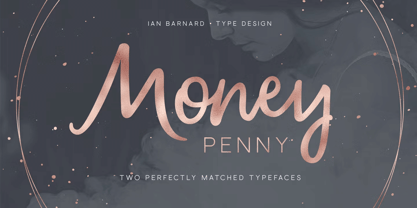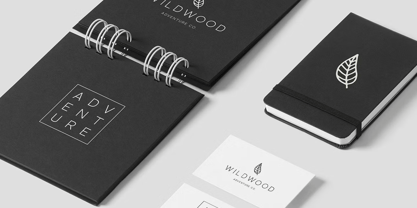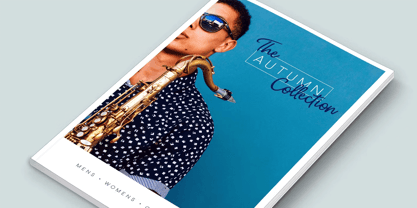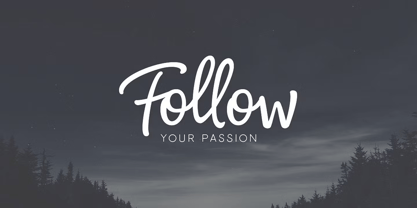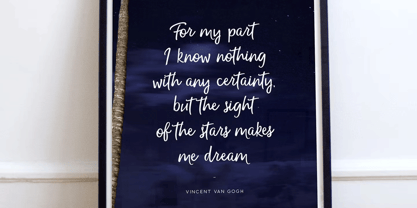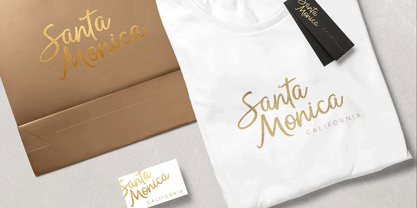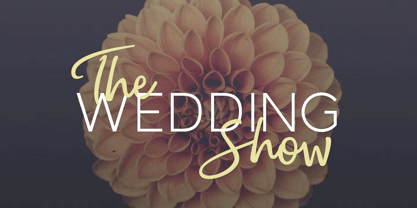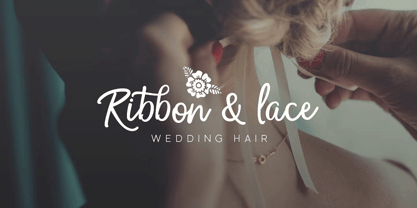
Money Penny
by Ian Barnard
The Money Penny Font Family was designed by Ian Barnard and published by Ian Barnard. Money Penny contains 2 styles and family package options. More about this family
Money Penny is a sophisticated, charming typeface duo that instantly adds modern luxury and feminine grace to any project. This elegant signature script features fluid rhythms and sweeping connectors, mimicking authentic hand lettering. It brings a warm, personal, and bespoke feel to your branding, invitations, and advertising, conveying a sense of high-end quality. The key to this offering is the combination of two perfectly matched typefaces. The expressive main script is paired with a clean, classic secondary font, ensuring excellent readability and design flexibility. This thoughtful contrast achieves a balance that is both eye-catching and harmonious, maintaining a cohesive and polished aesthetic across all your materials.